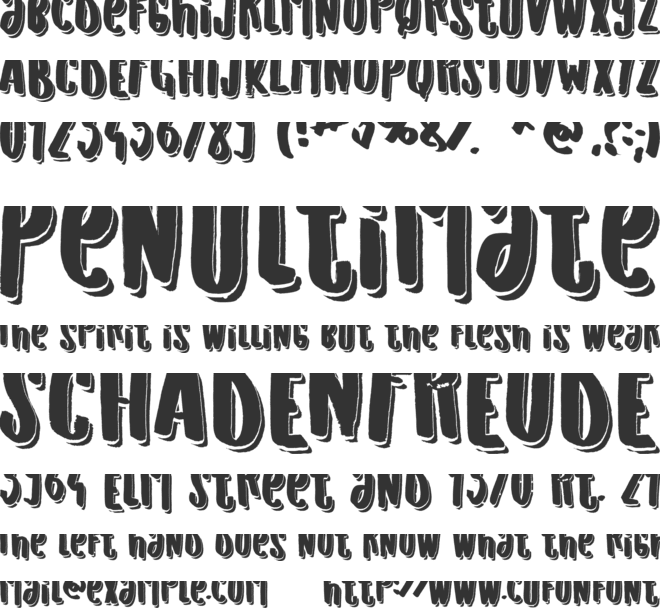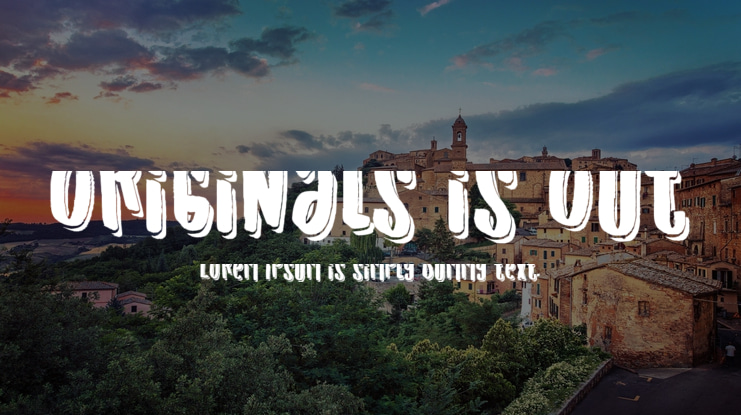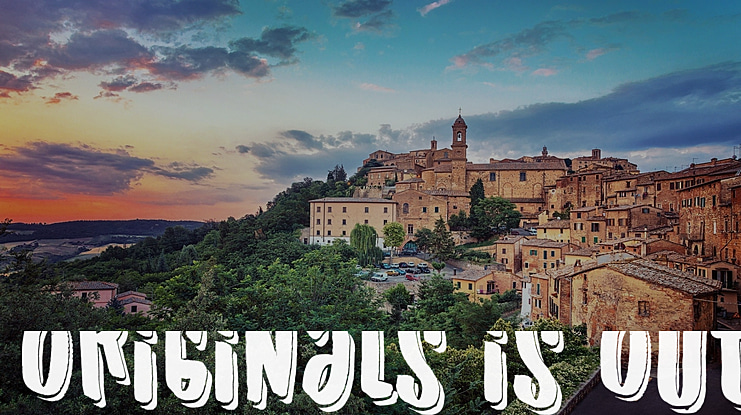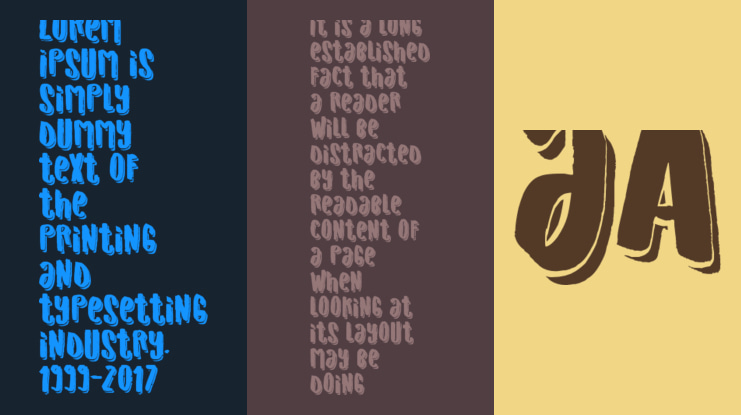
Originals is Out Font
Originals Typeface is a handdrawn playful display font.
The font can be used for many purposes but looks great when put on signs, shirts or cards. Also, it works perfect on fresh summer theme designs.